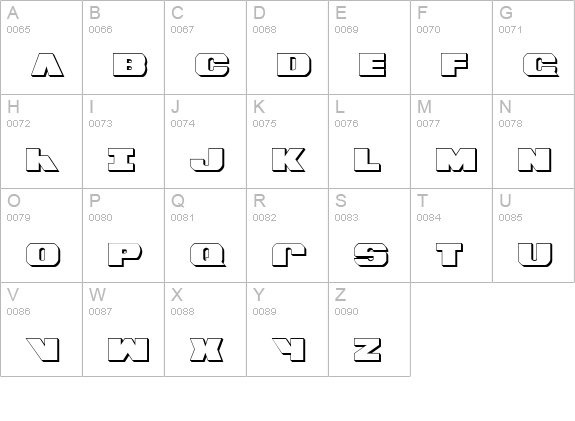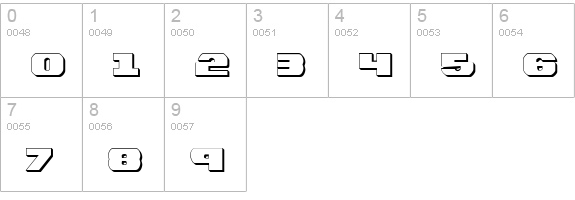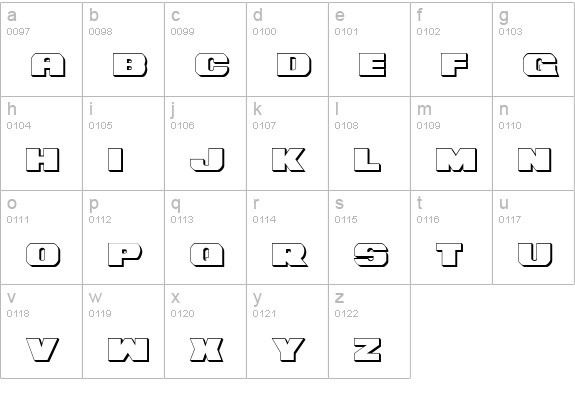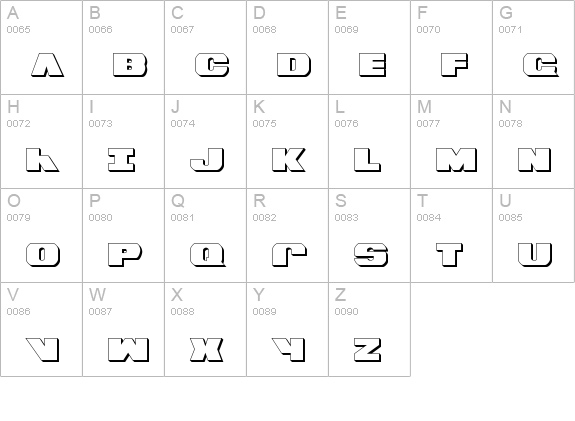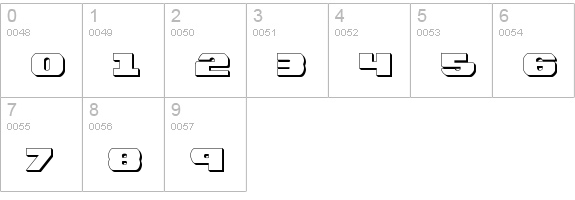
Bummer 3D font is a striking and modern typeface that is sure to make your designs stand out. This unique font features three-dimensional effects that add depth and dimension to your text. With its bold and eye-catching appearance, Bummer 3D font is perfect for creating posters, logos, and other graphic design projects that demand attention. The best part is that Bummer 3D font is available for free download at FontsMarket.com. This means you can easily add this dynamic font to your collection without having to break the bank. Whether you're a seasoned designer looking to spice up your projects or a beginner exploring the world of typography, Bummer 3D font is a fantastic choice that won't cost you a dime. Download it today and start creating visually stunning designs that will leave a lasting impression.